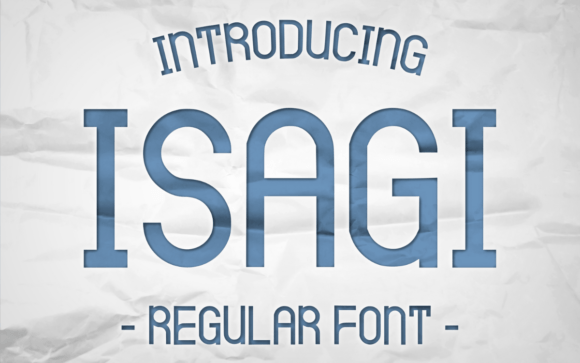
Prepare to step into the realm of typographic brilliance with “Isagi�, the sans serif font that will redefine your design horizons. This captivating creation by Aladin is not just a font; it's an artistic masterpiece, a symphony of strokes that dance in perfect rhythm, weaving a captivating tapestry of visual delight.
With “Isagi�, boldness takes center stage, making a statement that resonates with power and confidence. Its indomitable spirit commands attention, leaving an indelible imprint on every design it touches. Be it epic movie titles, striking game titles, logos that demand remembrance, or T-shirt designs that speak volumes, “Isagi� is the virtuoso you've been seeking.
Each character in “Isagi� is a testament to meticulous craftsmanship, meticulously shaped to inspire and invigorate. Experience the raw power of this font as it effortlessly elevates your projects, instilling a profound sense of awe and admiration in all who lay their eyes upon it.
Unleash the limitless potential of “Isagi�, and let it become the very essence of your legendary creations. Its versatility knows no bounds, adapting seamlessly to a myriad of design endeavors. Let “Isagi� be your guiding light as you embark on your creative odyssey, pushing the boundaries of imagination and leaving a lasting legacy of brilliance.
Dive into the world of “Isagi� today and witness the transformation of your designs. Let this extraordinary font ignite your passion, fuel your creativity, and propel your projects to extraordinary heights. Embrace the power of “Isagi� and unlock the gateway to typographic excellence.